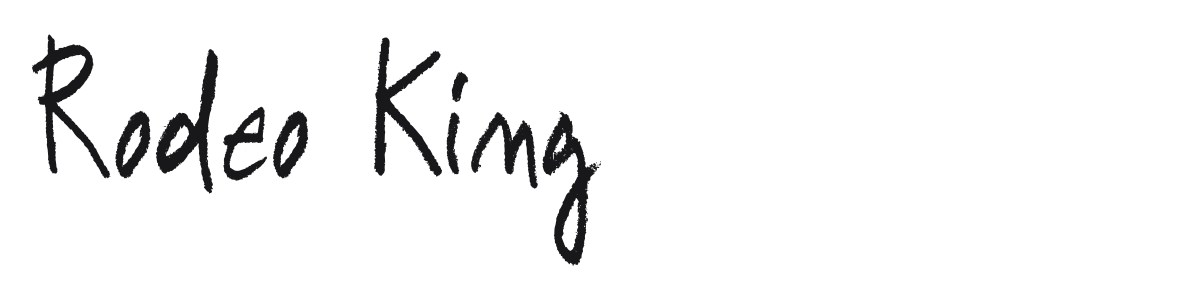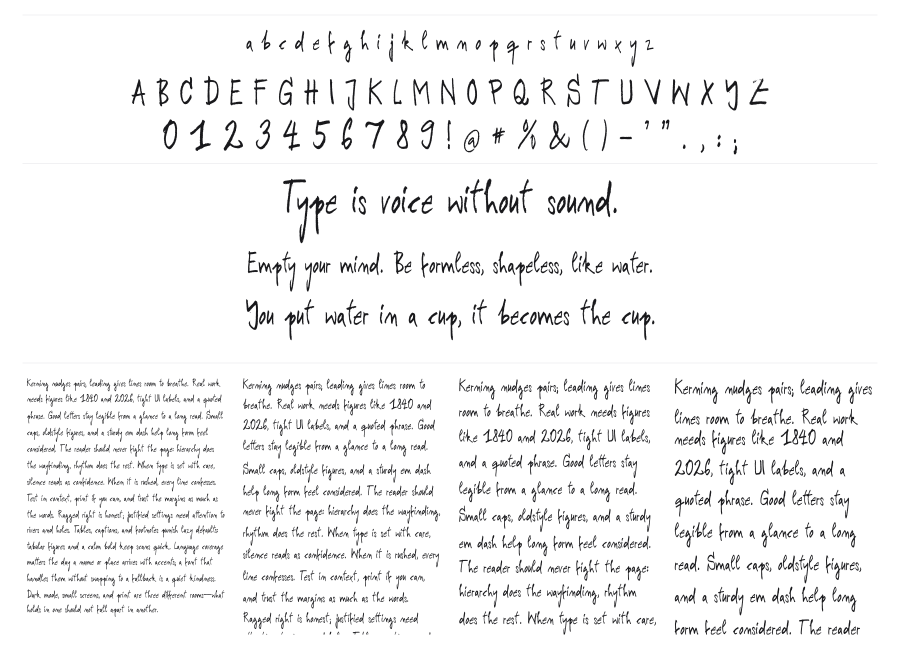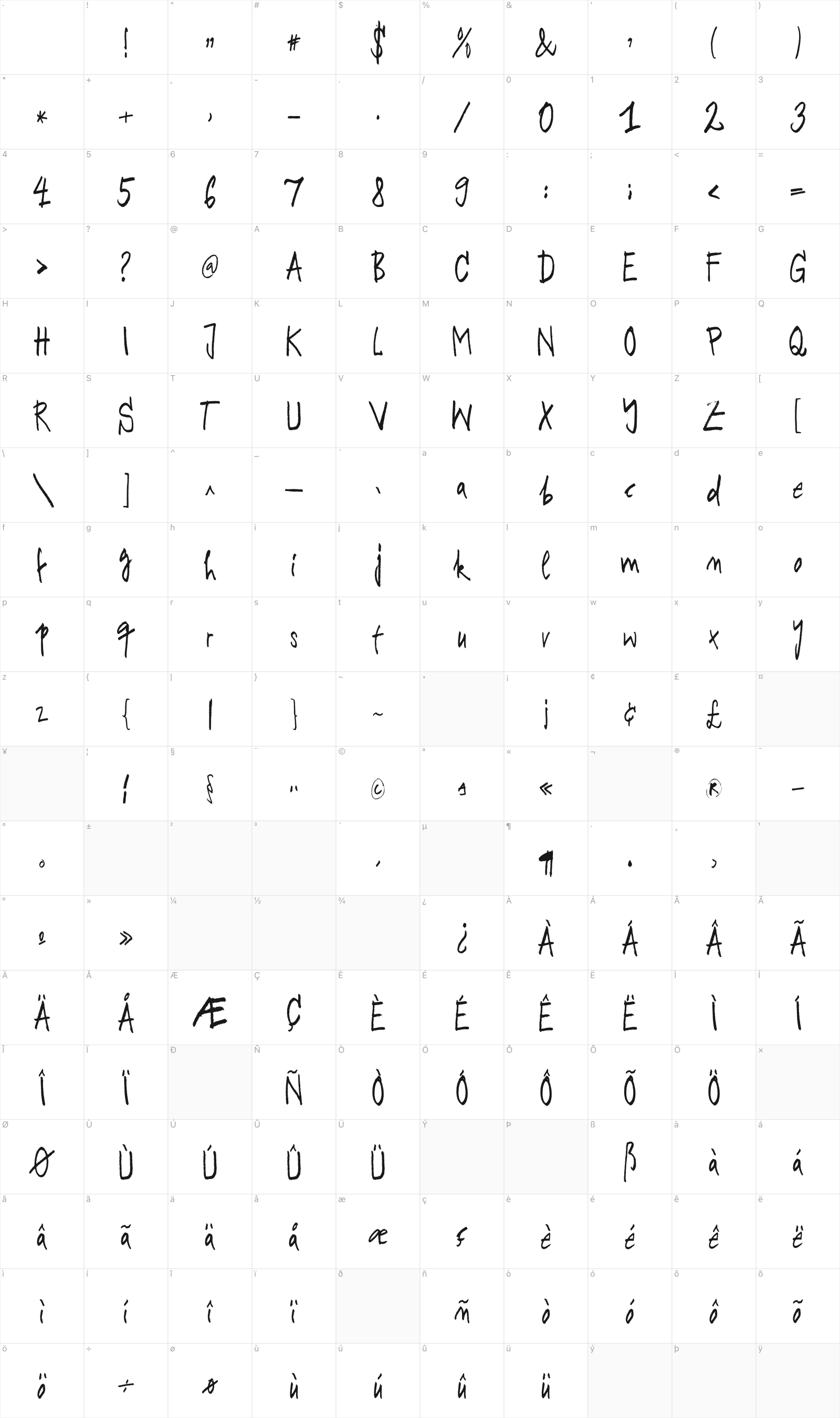
Rodeo King
Rodeo King is a rough brush script drawn with loose, spontaneous strokes and irregular edges that feel genuinely handmade. The uneven baseline and bristle texture give it an unpretentious, off-the-cuff energy that polished scripts can't replicate. It works best large, where the rawness reads as character.